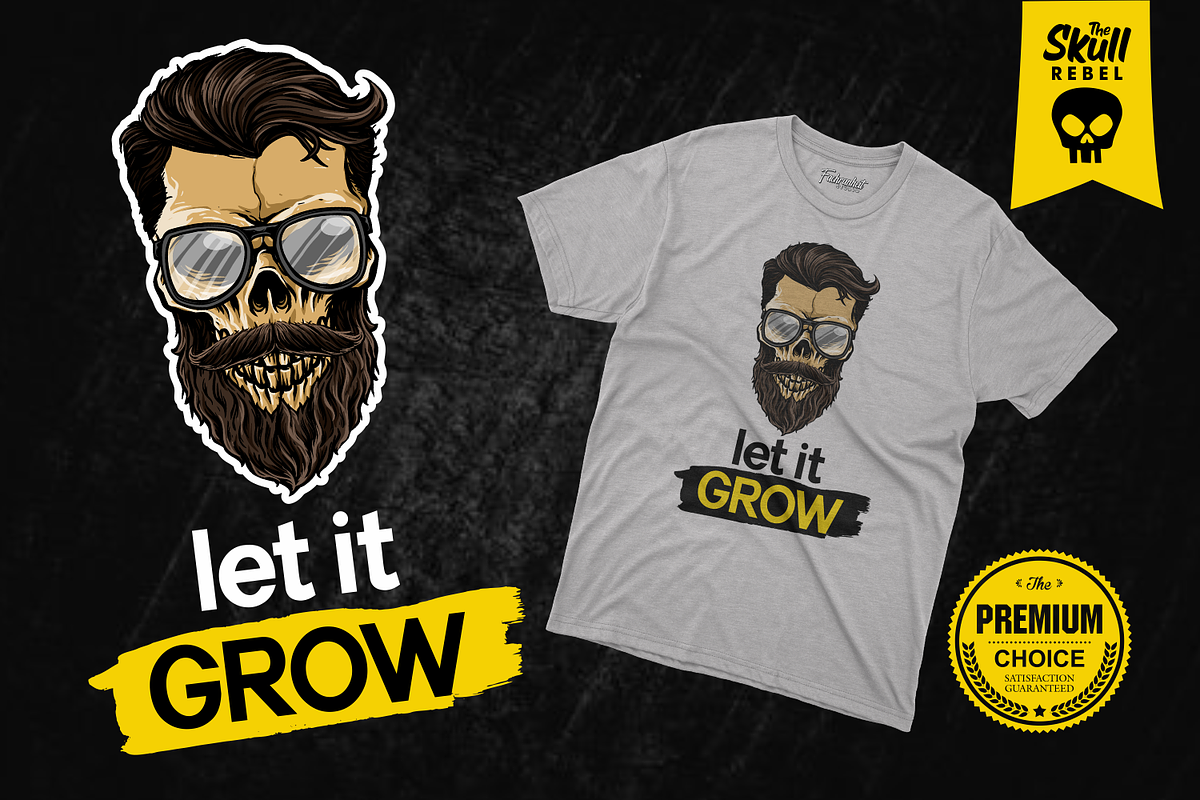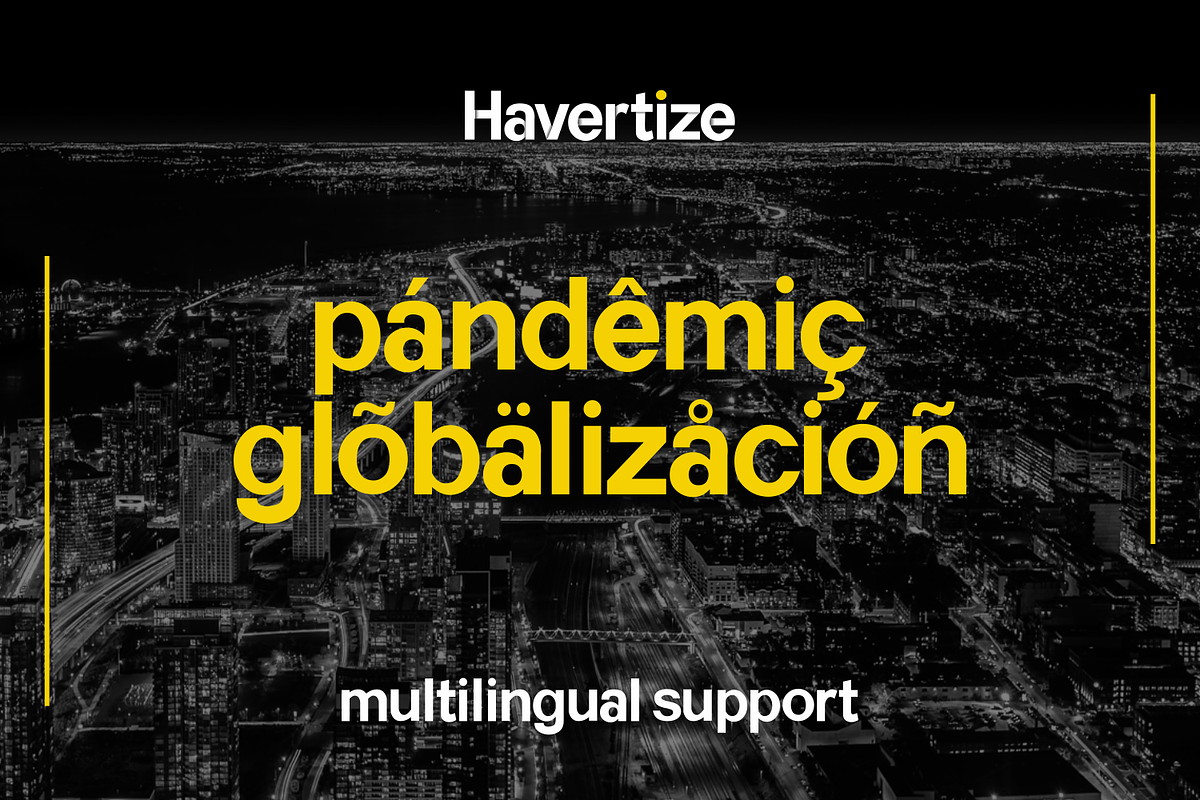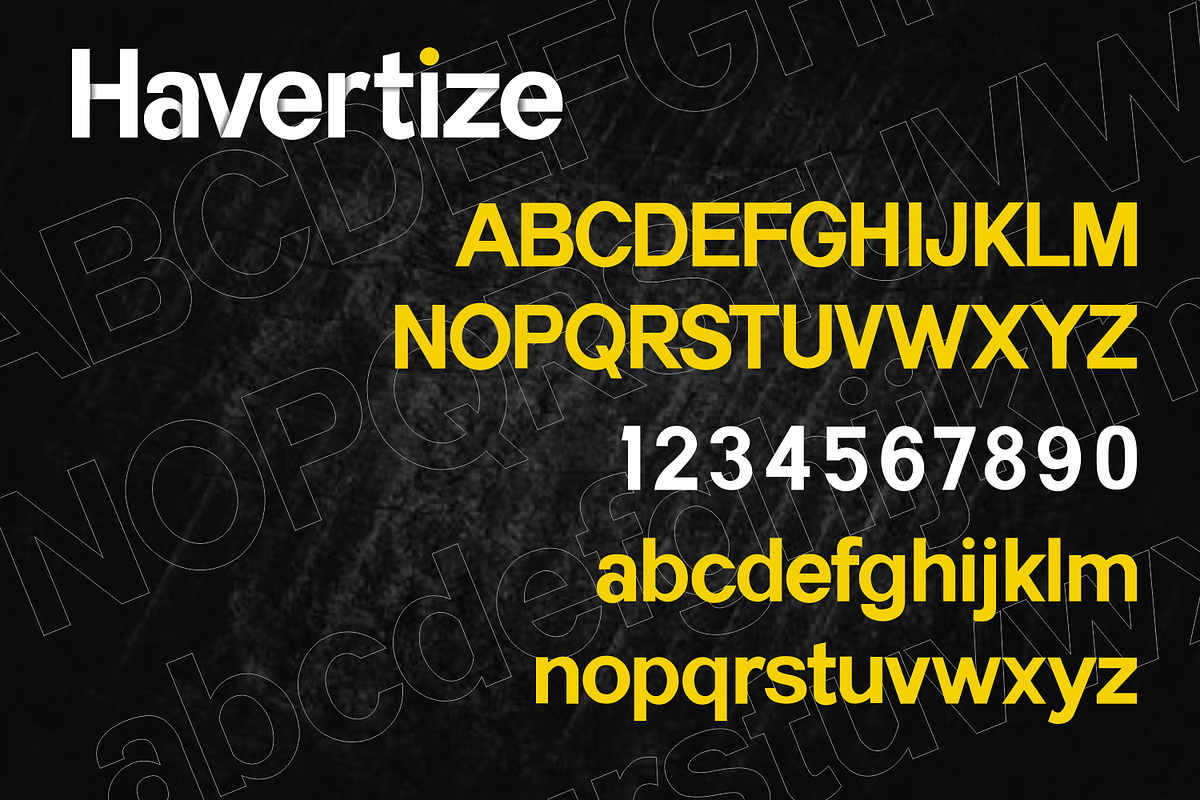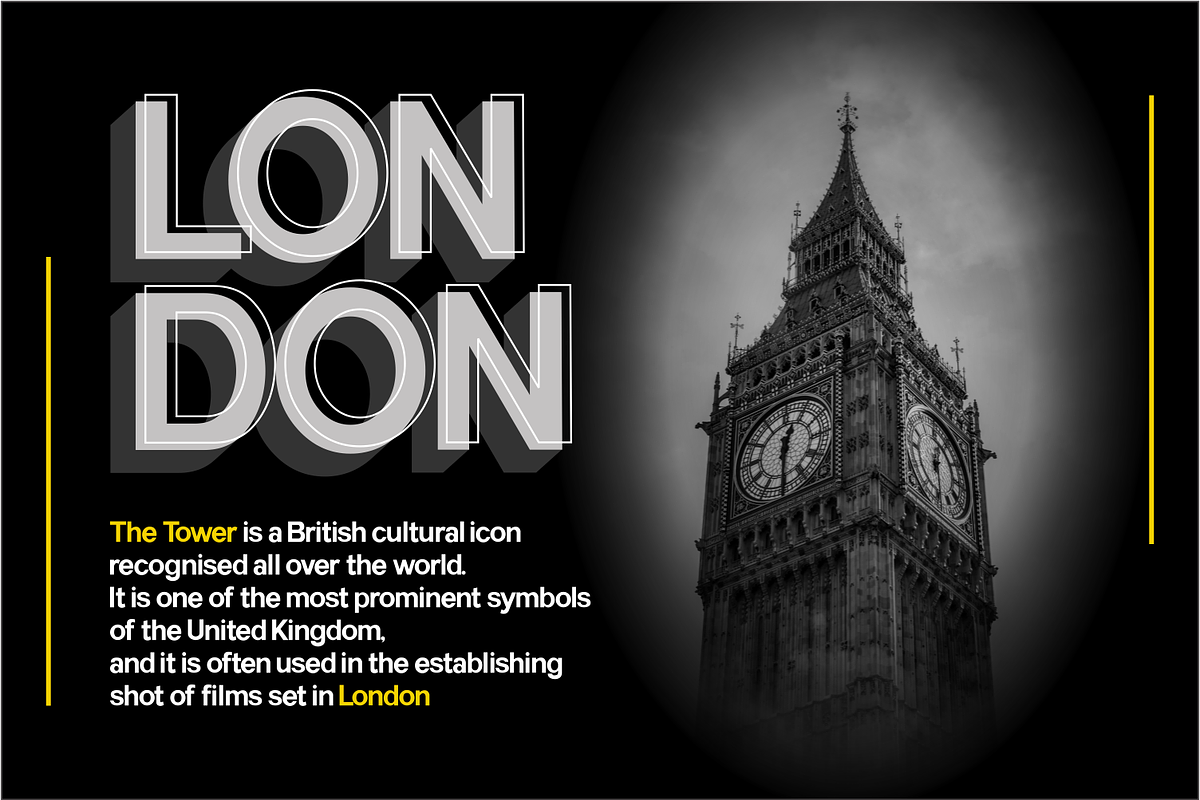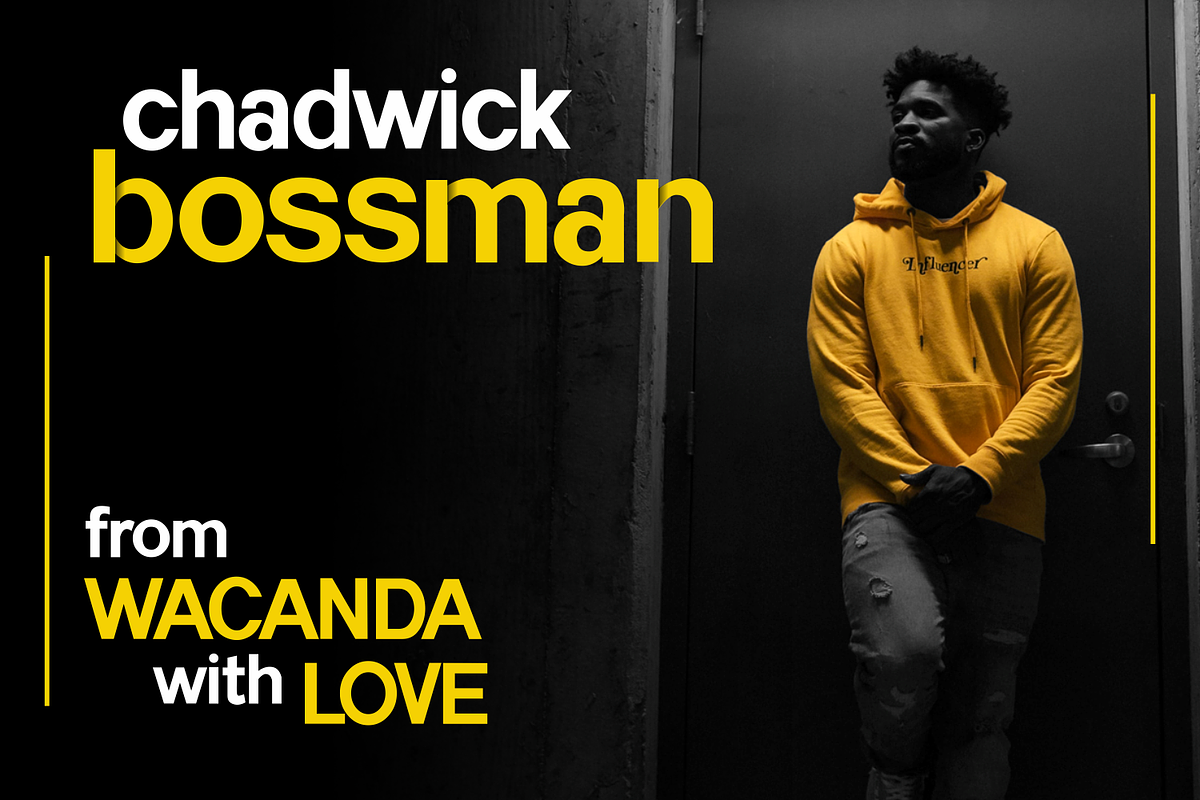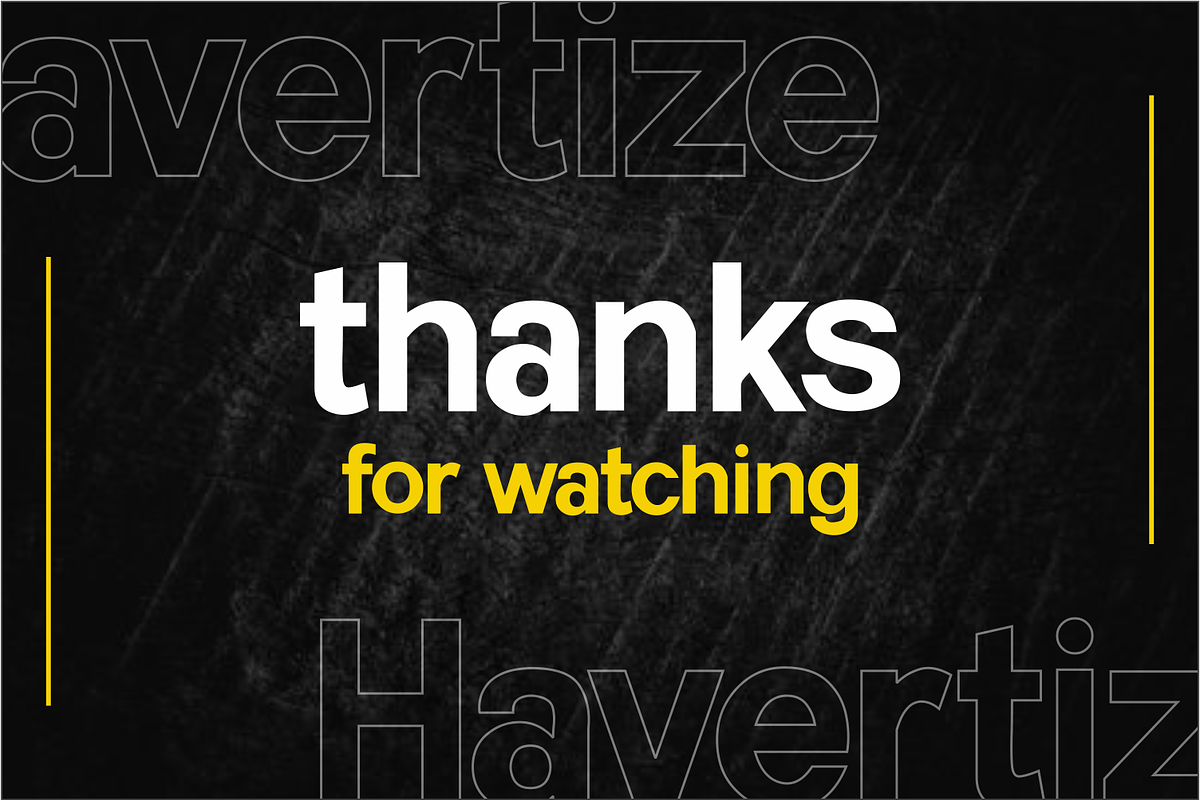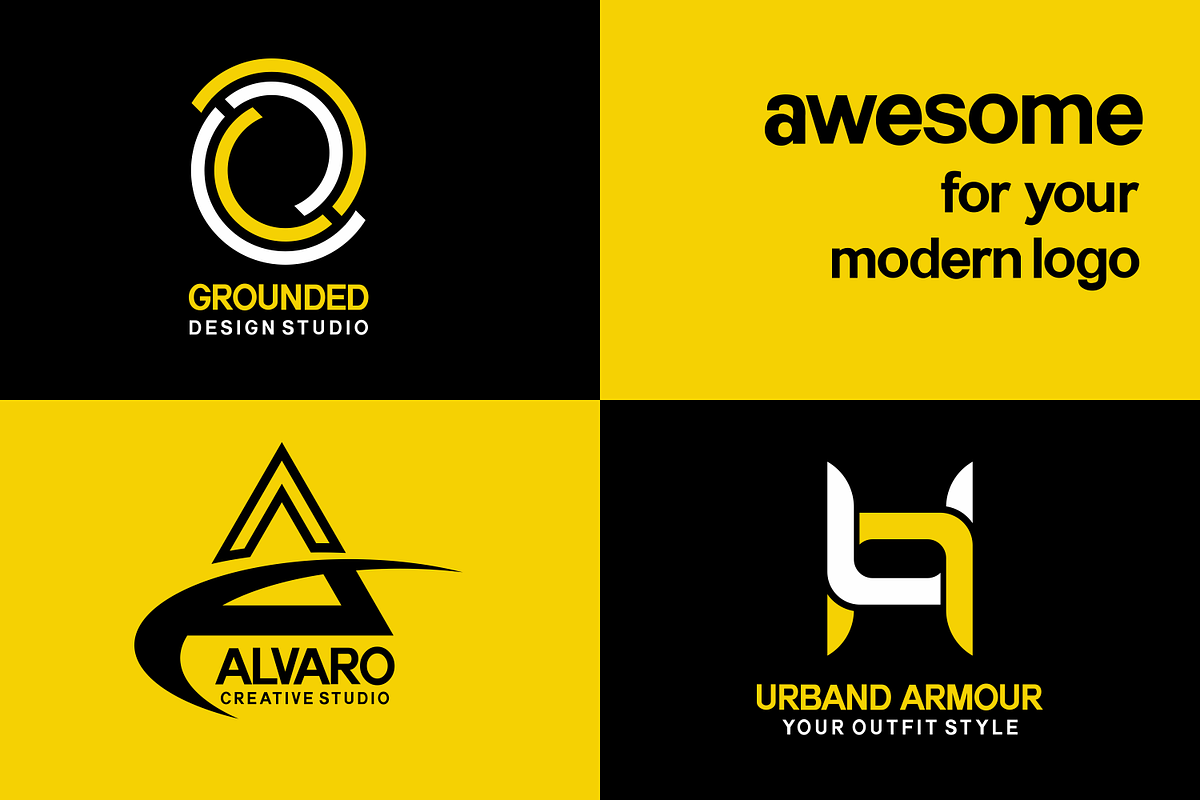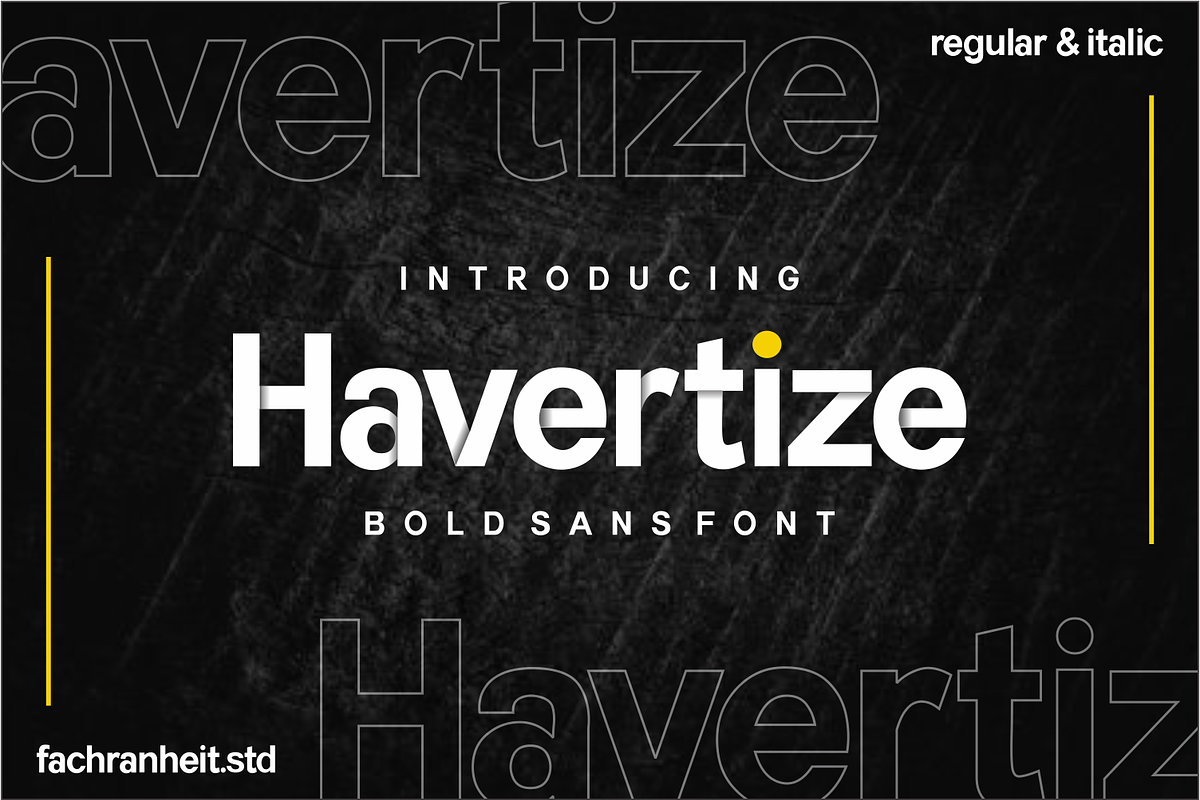
Havertize
Havertize is a modern and bold sans-serif font. it's come with two style regular and italic. It can easily be matched to an incredibly large set of projects, so add it to your creative ideas and notice how it makes them stand out!
- Havertize
- Havertize Italic
- Multilanguage Support